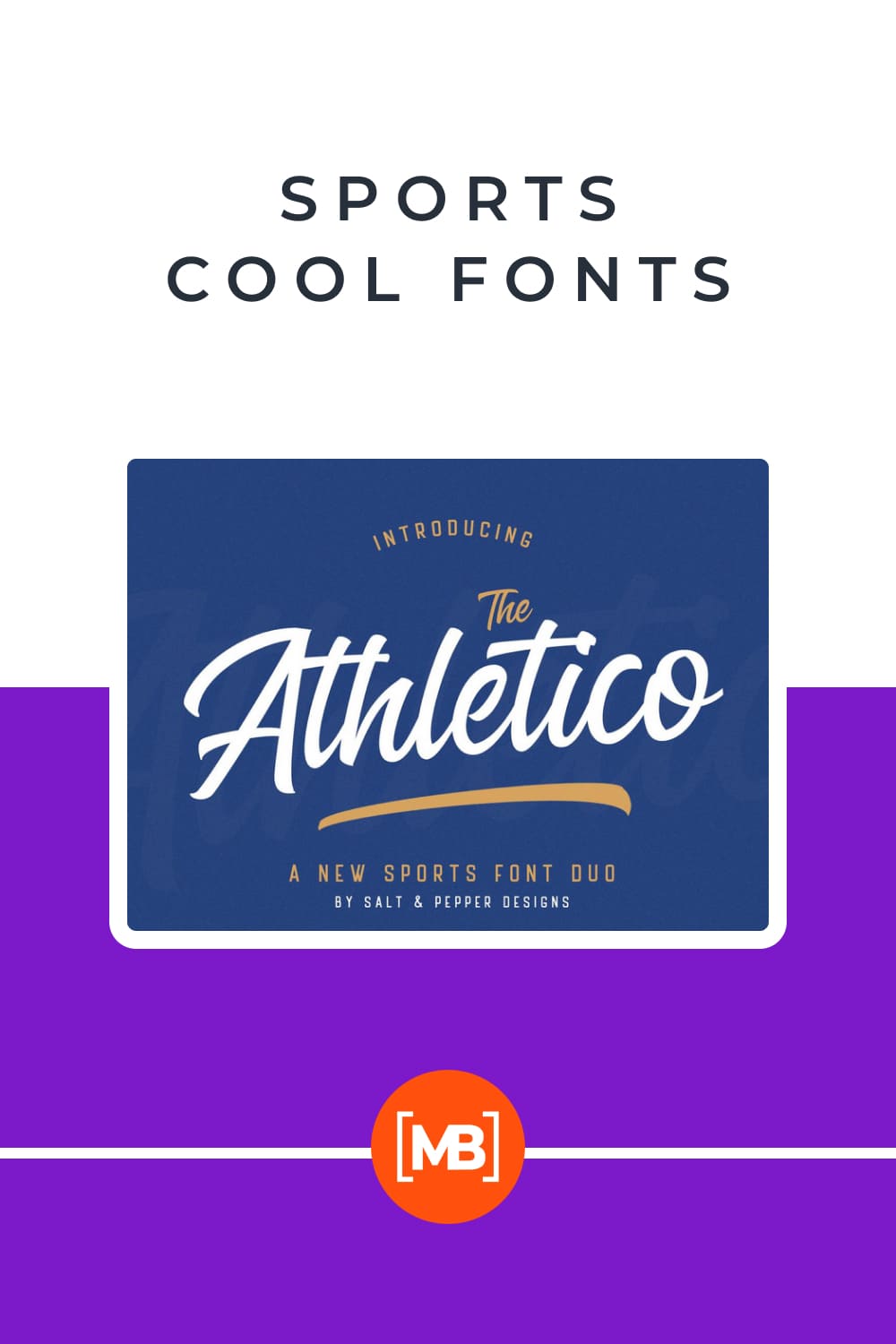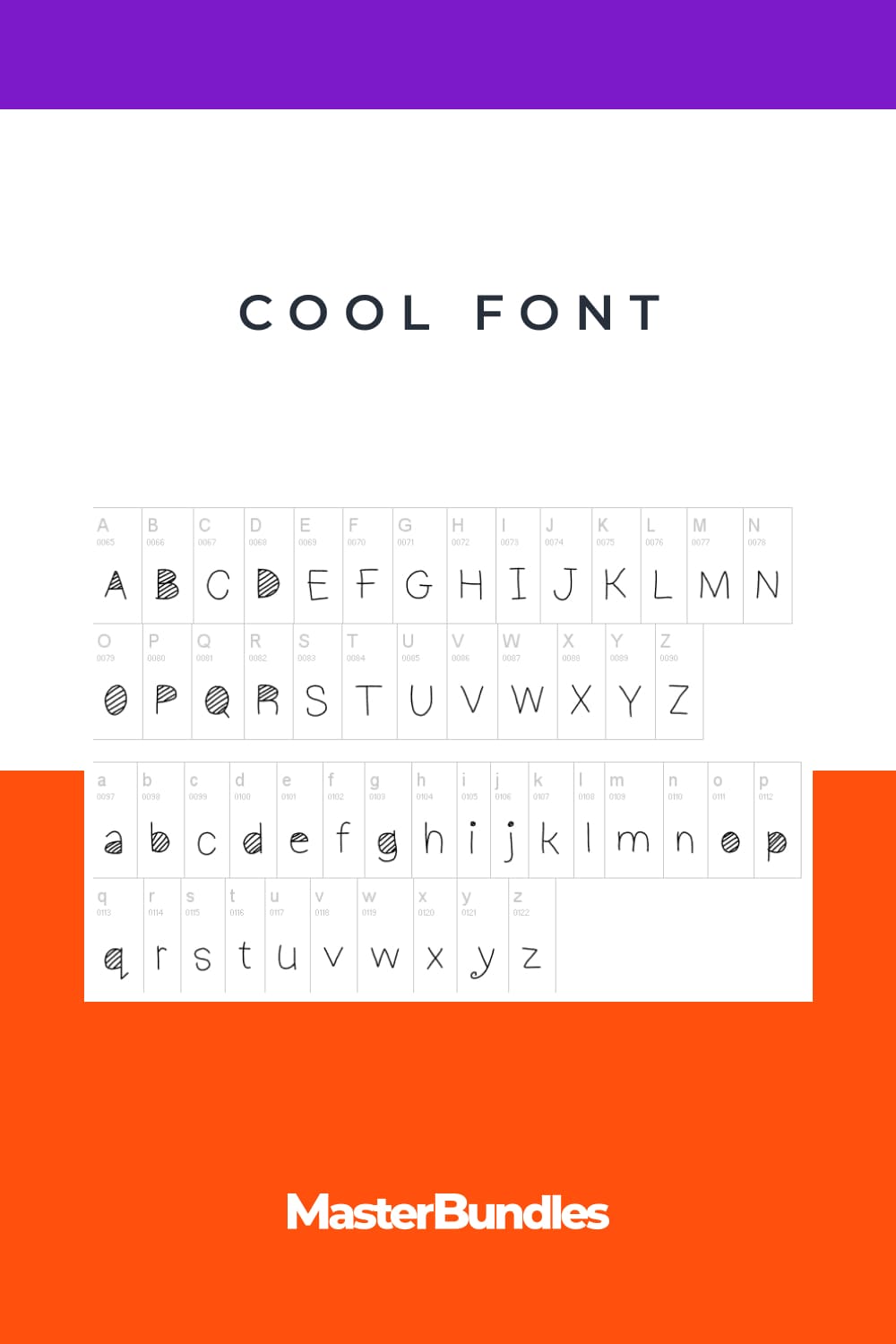
30+ Best Cool Fonts in 2021: Free and Premium
Cool Fonts. The font, an important element of a project’s style, has a strong association with the products being sold. With the help of the distinctive features used, customers form an opinion about you, your product, company, offer, and so on as a whole.
If you think that the font is the simplest element and is the last thing to think about, you’re wrong. The script you choose can have an impact on the mood of the person who sees it. The same exact words will have a different emotional feeling, based on the typeface style implemented in their writing.
It is important to consider the characteristics of potential audiences and to choose a font that will be seen positively and effectively perceived by them. Light playful letters on an advertising sign will actively attract the teenage audience, but to appeal to business partners, this style is not suitable. So, we offer you a selection of cool fonts, which are perfect for many different purposes. They have a great visual appearance, are ready for any customization, and will brighten up your outstanding projects.
Top Cool Fonts
Best Premium Cool Fonts
Cool Fonts
Vivid and cute font.
Cool Britannia – Typeface
Modern font in sea style.
TOMO Bossa
Magazine font in bright colors.
Jelly Beans Cool Font
Perfect font for night fairy tail.
Hot Mess SVG Font
Font like a marker.
PGF Qualta
Simple font with bold elements.
Sports Cool Fonts
Nice and elegant sports font.
Bayshore + New Neon Glow Styles
Neon font style.
Sweet Summer
Font for trips and vacation.
Girly Fonts Cool Fonts
Very delicate font with thin letters.
Quisas – Quirky Handwriting Fonts
The wavy font over which the words flow.
Intense Emotion
Simple and easy to read font.
Brand – Lovely Elegant Font
A stylish font that can be a part of a fashion magazine cover.
Night Wind Sent
A capital calligraphic font.
Best Free Cool Fonts
Sketch Script Cool Font
Font with double lines and ornaments.
Summer Display Font
Gold font on a deep green background.
Cool Font
A common and versatile font.
Zulm Cool Font
The font resembles a marker.
Sweet Cool Font
Looks like a game font.